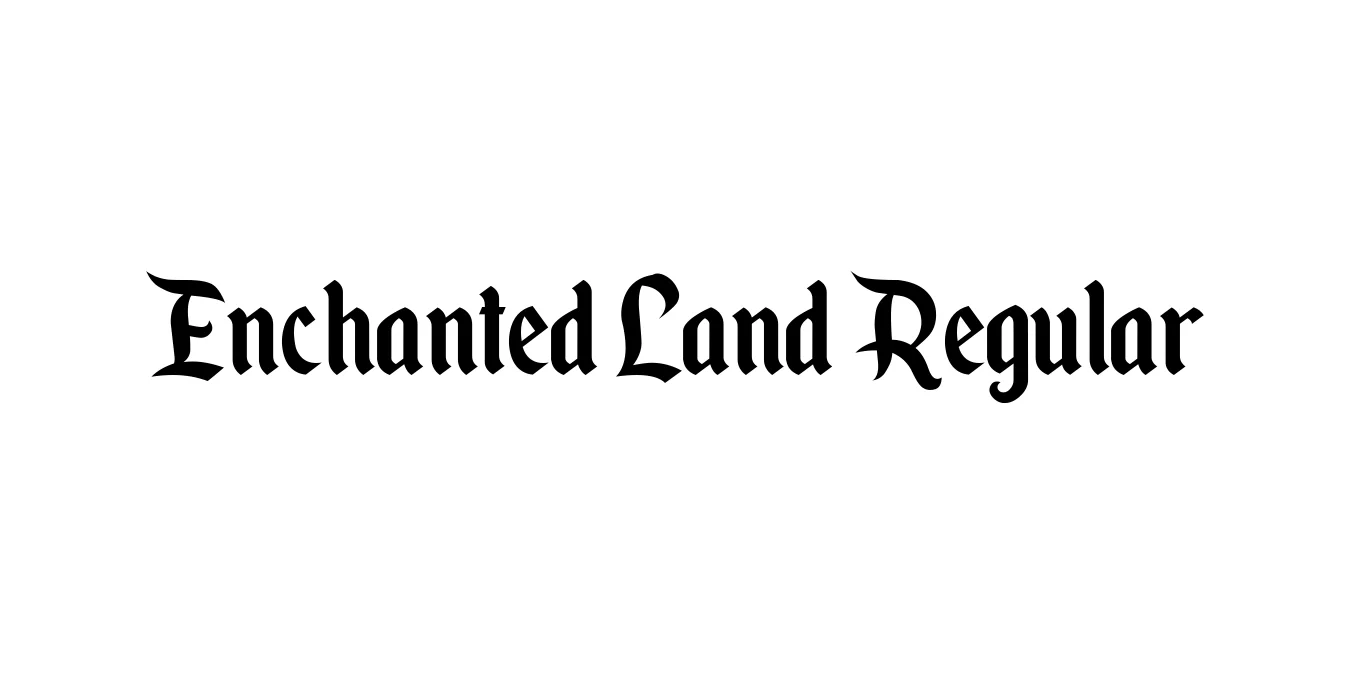
Enchanted Land Regular
| Font Name | Enchanted Land |
| Category | Gothic / Blackletter |
| Similar Fonts | Cloister Black, Old English Text, Goudy Text |
Enchanted Land Regular is a beautifully crafted gothic typeface that draws heavy inspiration from medieval calligraphy and fairytale aesthetics. Created by the renowned type designer Mans Greback, this font features elegant yet sharp strokes that evoke a sense of ancient magic and historical storytelling.
Its intricate letterforms make it a standout choice for projects that require a mystical or vintage atmosphere. Whether used for fantasy book titles, gaming interfaces, or thematic branding, Enchanted Land provides a unique visual identity that transports the viewer to a realm of knights and enchantment.
Enchanted Land Regular Best Uses
Perfect for fantasy and historical novels.
Ideal for logos needing a mystical or old-world feel.
Great for UI elements in RPG and adventure games.
Eye-catching for movie posters and event flyers.